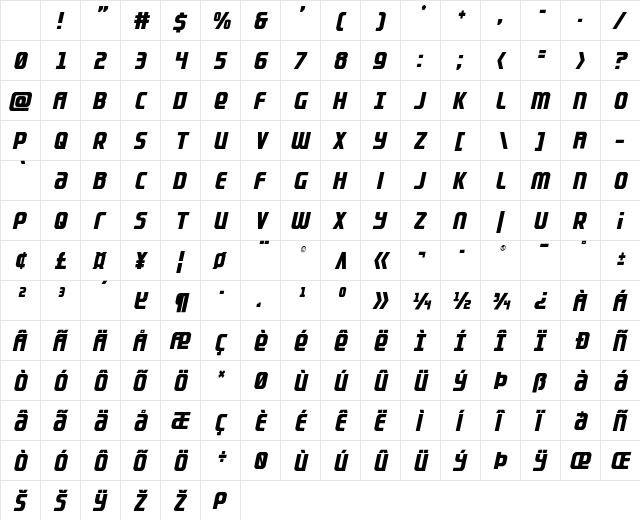
Lightsider Compact is a composed and adaptable typeface that performs quietly and consistently across a wide range of design contexts. Its slender proportions lend an understated elegance to any composition. Its narrow stance lets it pack a punch even in space-constrained designs.